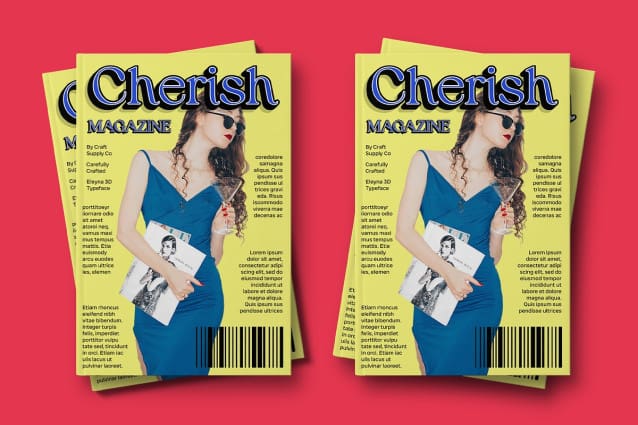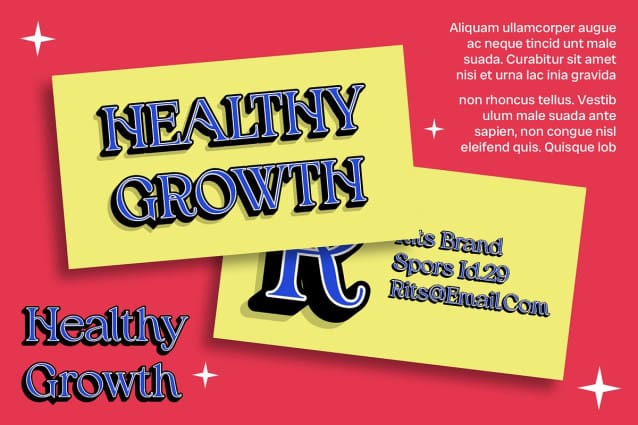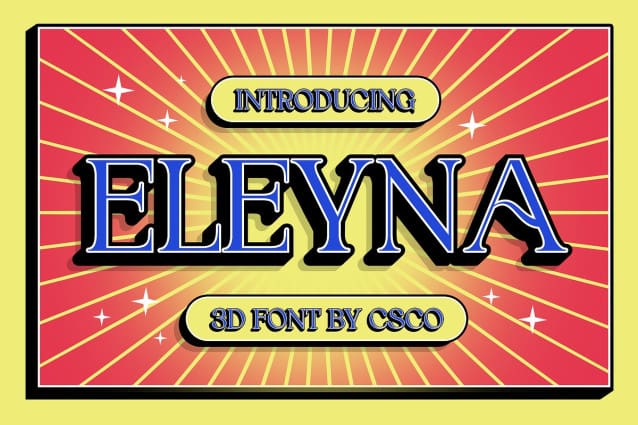
Eleyna 3D Font
Eleyna 3D Font is a modern serif font with a 3D shape, suitable for use in all creative designs. Its sleek design and three-dimensional elements create a unique and dynamic look, ideal for posters, branding, and other projects that require a bold statement.
With its clean lines and three-dimensional shape, Eleyna 3D offers a fresh take on serif fonts. The modern style and 3D effect create a captivating and innovative look, perfect for designs that demand attention and convey a sense of modernity and creativity.
Whether you’re designing a futuristic advertisement or creating a cutting-edge logo, Eleyna 3D is sure to make an impression. Its 3D shape and modern style make it perfect for designs that need a touch of three-dimensional flair.
Despite its distinctive appearance, Eleyna 3D is versatile and easy to use. The font works well in both large and small sizes, making it suitable for a variety of applications, from headlines and banners to body text and more. With its blend of modern style and 3D effect, Eleyna 3D adds a unique and dynamic element to any design.